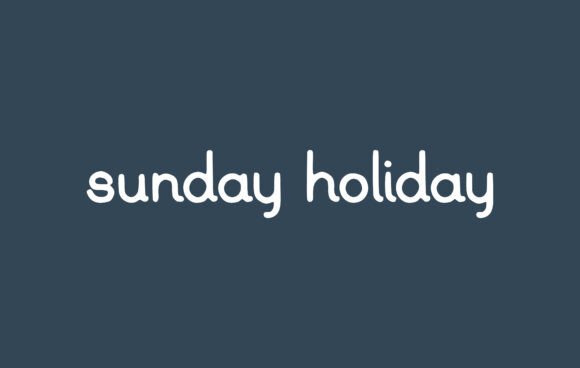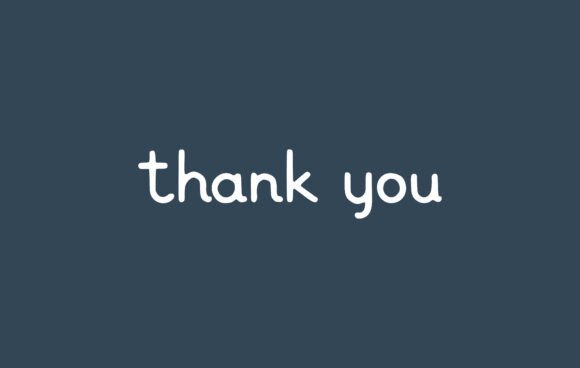
Crafting Font: Elevate Your Designs with a Romantic Touch
In the world of typography, a well-crafted font can make all the difference in bringing your creative ideas to life. Introducing Crafting Font, an authentic handwritten font that exudes a romantic touch, perfect for designers and crafters looking to add a personal and elegant flair to their projects.
The Charm of Crafting Font
Crafting Font is expertly designed to capture the essence of traditional handwriting, with a unique blend of elegance and playfulness. Its romantic touch makes it an ideal choice for a wide range of design applications, from wedding invitations and cards to magazine headlines and social media graphics. The font’s legibility and versatility ensure that it looks great as both title and body text, making it a valuable addition to any designer’s toolkit.
With Crafting Font, the creative possibilities are endless. Here are just a few ideas to get you started:
- Magazine Headlines: Add a touch of sophistication to your magazine covers with Crafting Font’s elegant and eye-catching lettering.
- Social Media Graphics: Stand out on social media with custom graphics that showcase your brand’s personality and style.
- Branding: Establish a consistent brand identity with Crafting Font’s unique and recognizable typography.
- Wedding Invitations: Make your wedding invitations truly special with Crafting Font’s romantic and whimsical touch.
- Cards and Stationery: Add a personal touch to your cards and stationery with Crafting Font’s beautiful handwritten lettering.
What Makes Crafting Font Special?
Crafting Font’s unique characteristics make it an exceptional choice for designers and crafters. Here are a few reasons why:
- Authentic Handwritten Style: Crafting Font is carefully crafted to mimic the look and feel of traditional handwriting, giving your designs a personal and human touch.
- Legibility: Despite its handwritten nature, Crafting Font remains highly legible, making it suitable for both title and body text.
- Romantic Touch: The font’s romantic undertones add a touch of elegance and sophistication to any design.
- Versatility: Crafting Font can be used in a wide range of design applications, from digital graphics to print materials.
Tips for Using Crafting Font
To get the most out of Crafting Font, here are a few tips to keep in mind:
- Experiment with Font Sizes: Crafting Font looks great in a variety of font sizes, from large headlines to smaller body text.
- Play with Color: The font’s elegant lettering looks stunning in a range of colors, from classic black and white to bold and bright hues.
- Mix and Match: Combine Crafting Font with other typography styles to create visually interesting and dynamic designs.
Crafting Font is a truly exceptional handwritten font that offers a unique blend of elegance, playfulness, and romance. With its versatility, legibility, and authentic handwritten style, it’s the perfect choice for designers and crafters looking to elevate their creative ideas. Whether you’re working on a magazine headline, social media graphic, or wedding invitation, Crafting Font is sure to bring a touch of sophistication and whimsy to your designs.